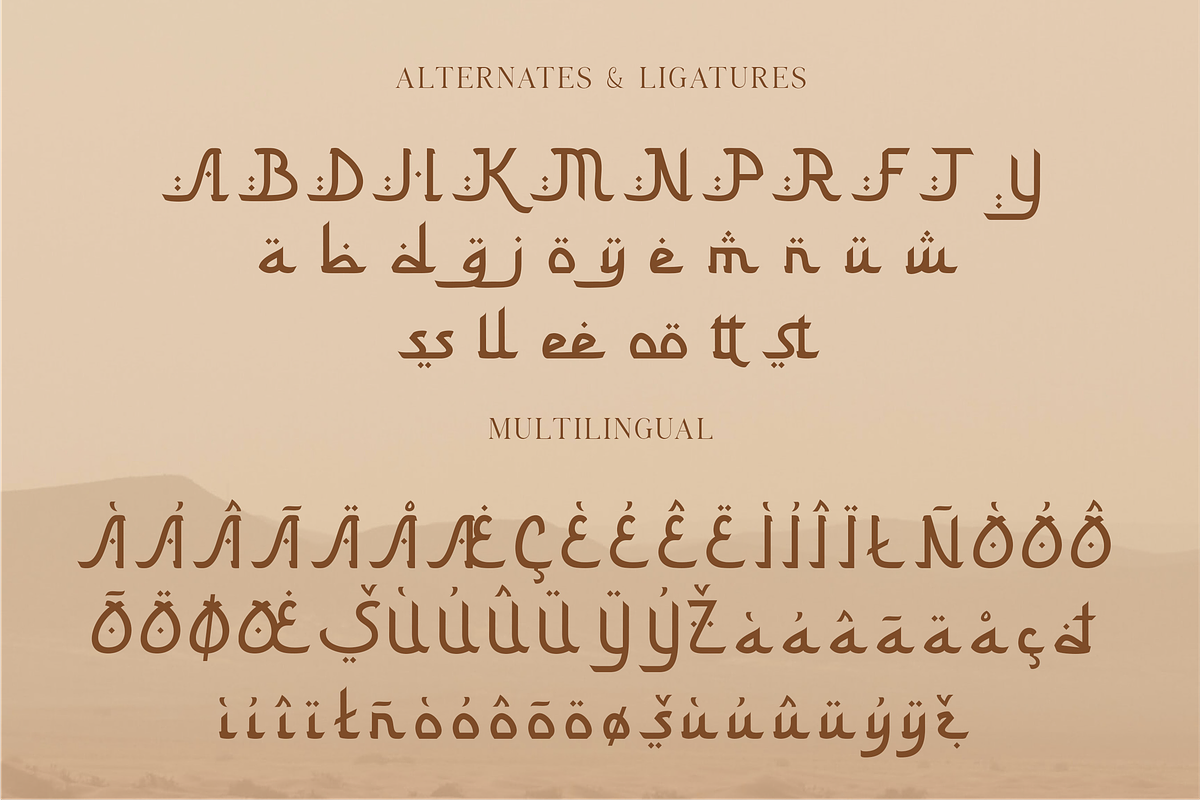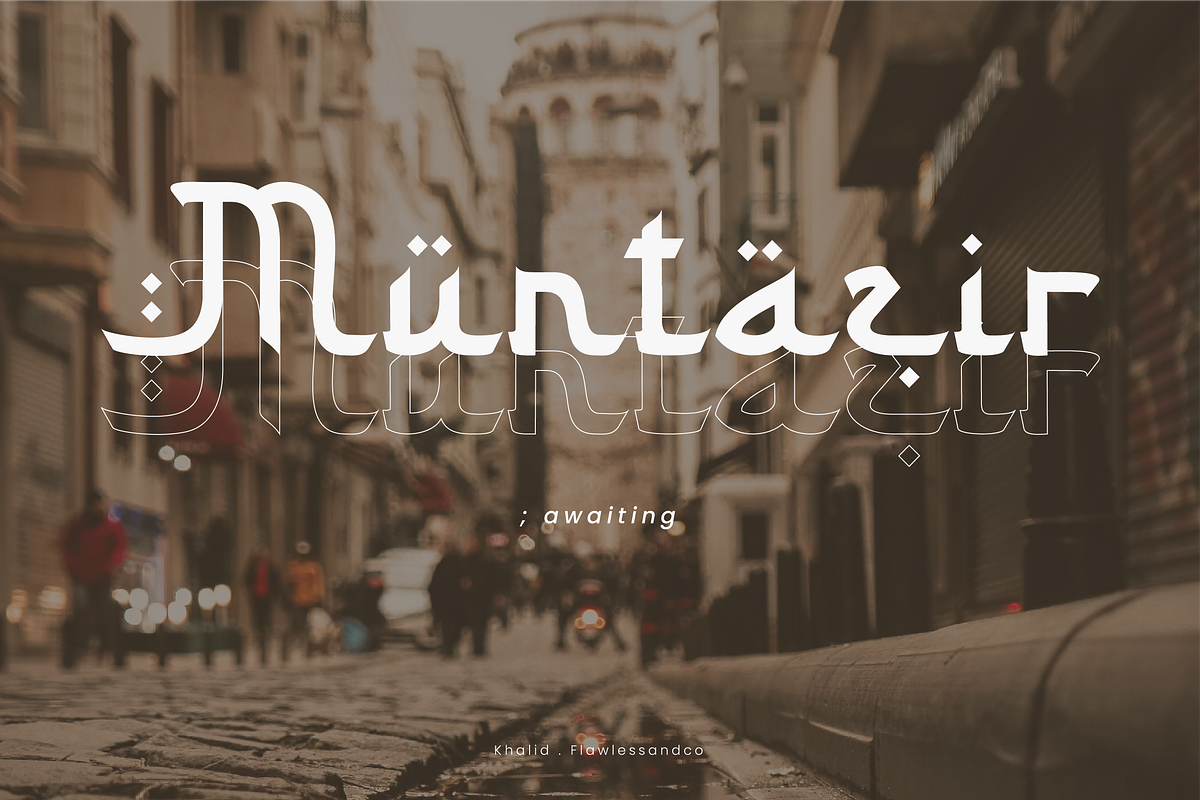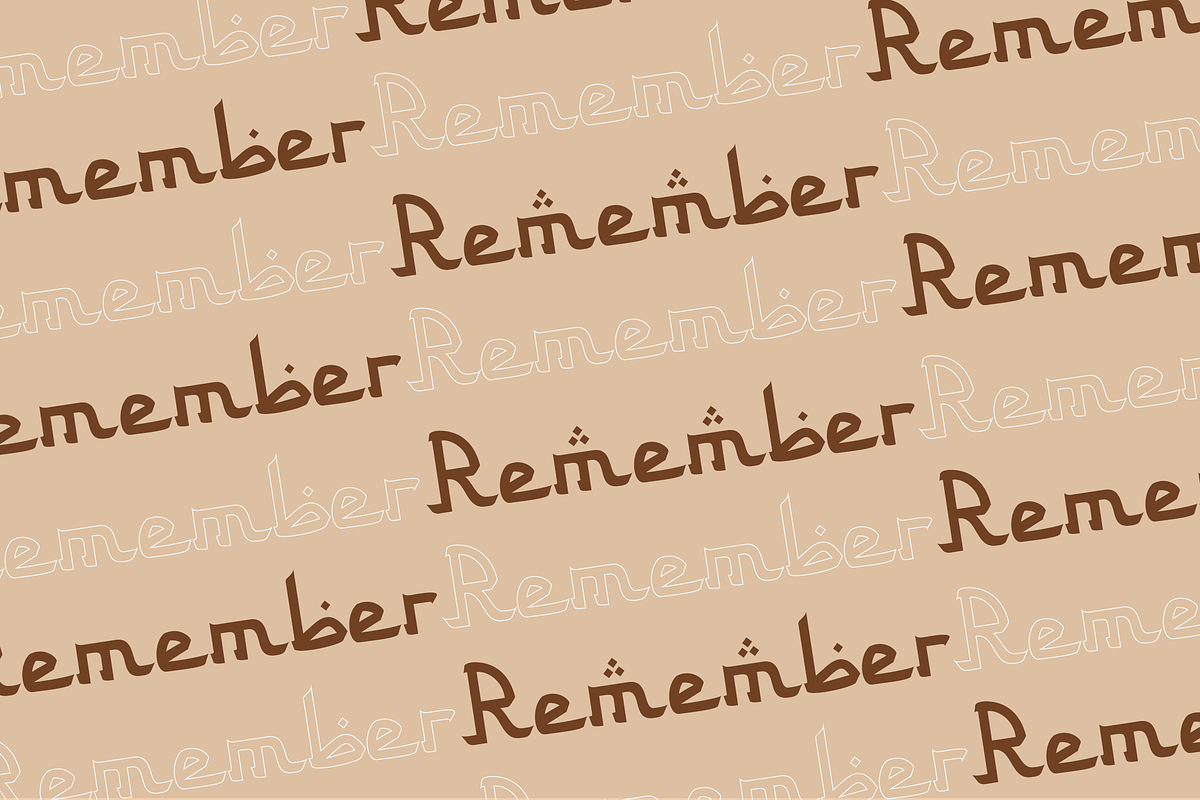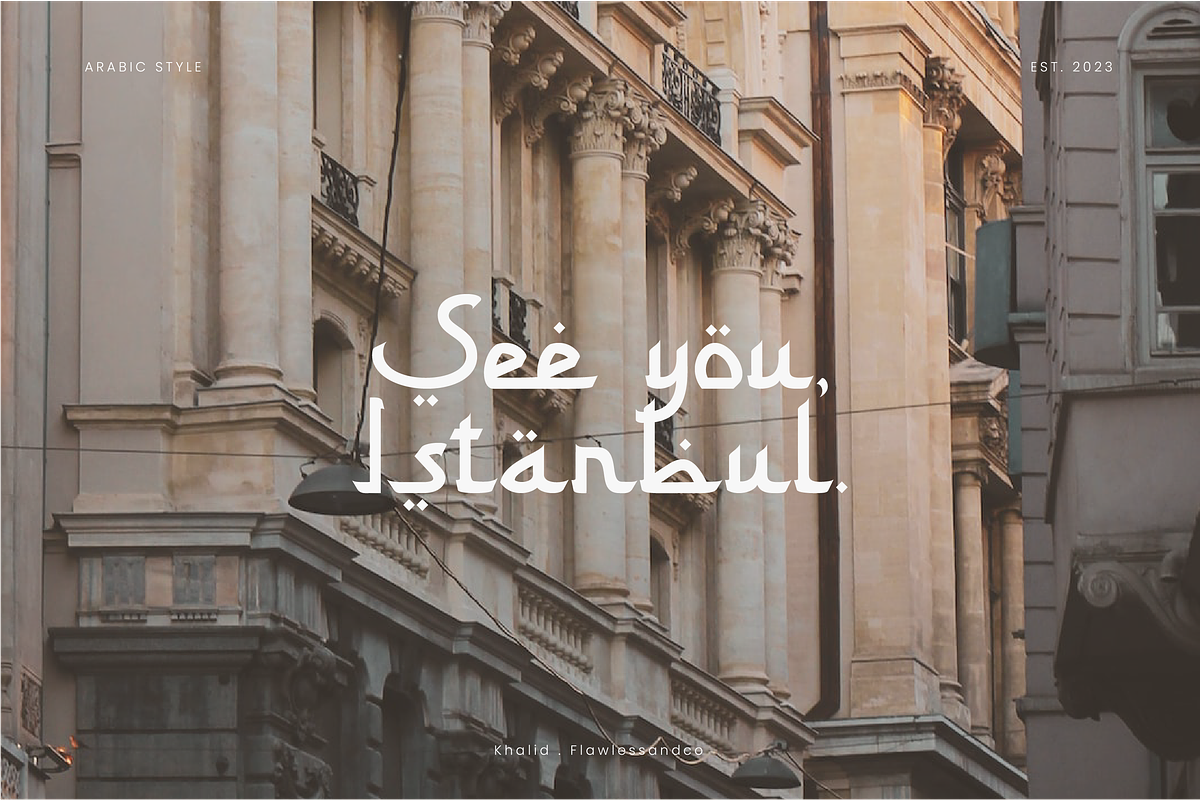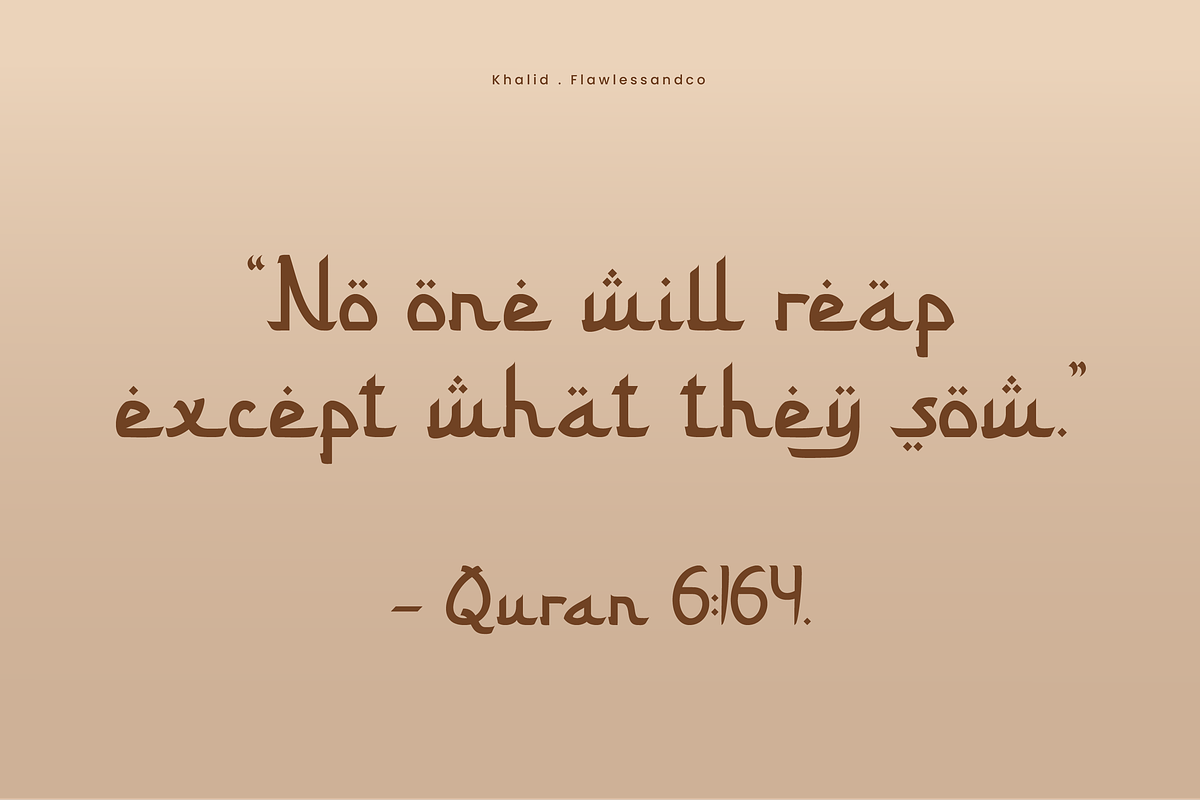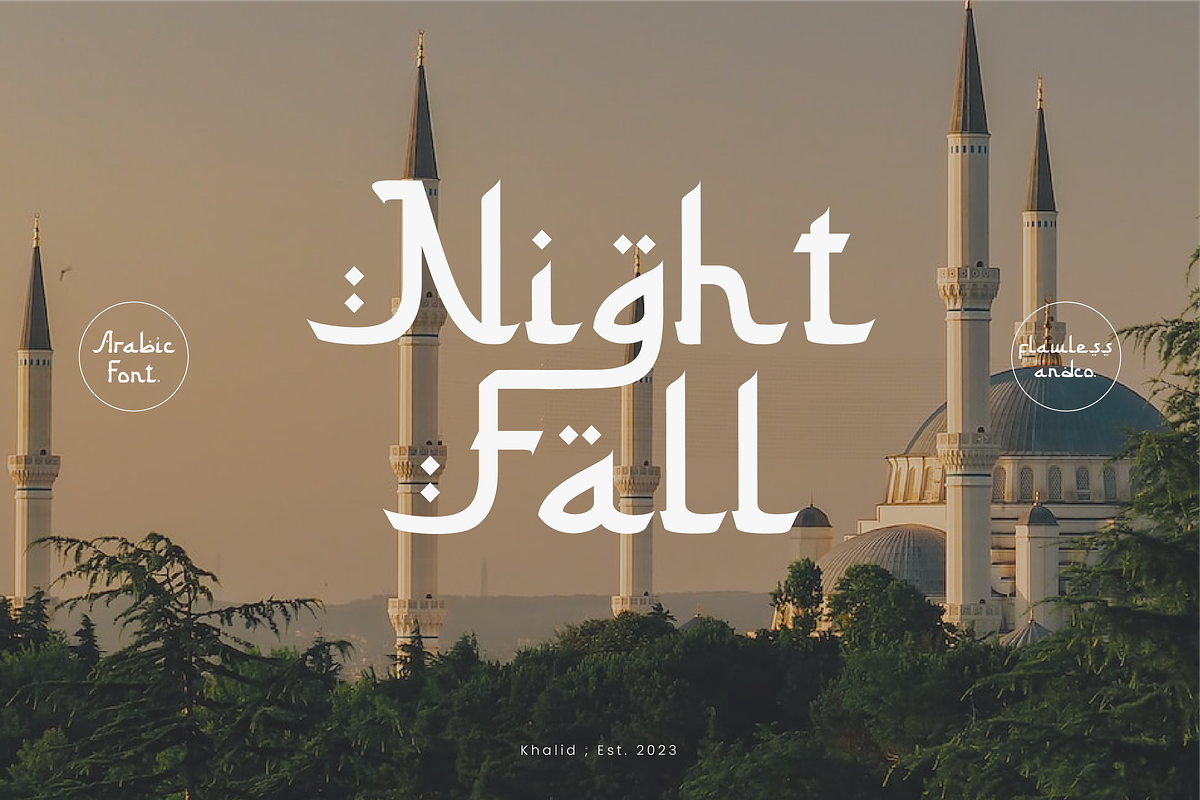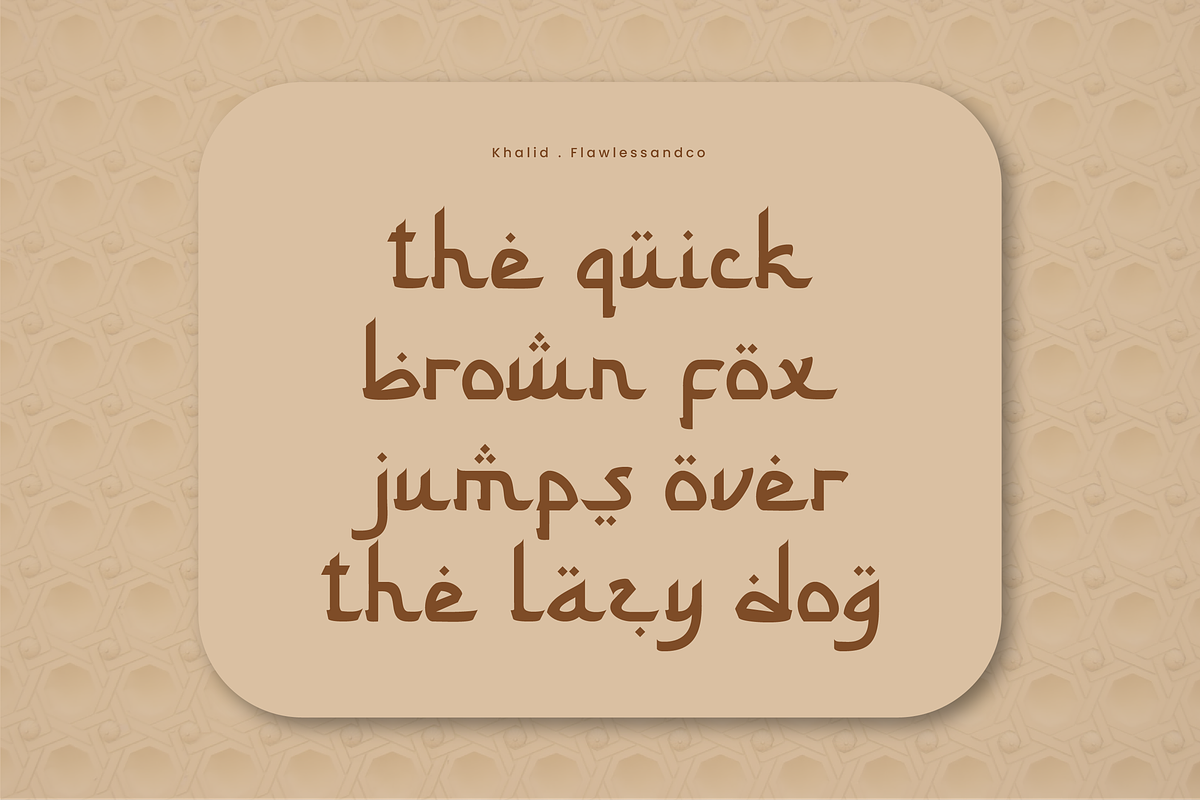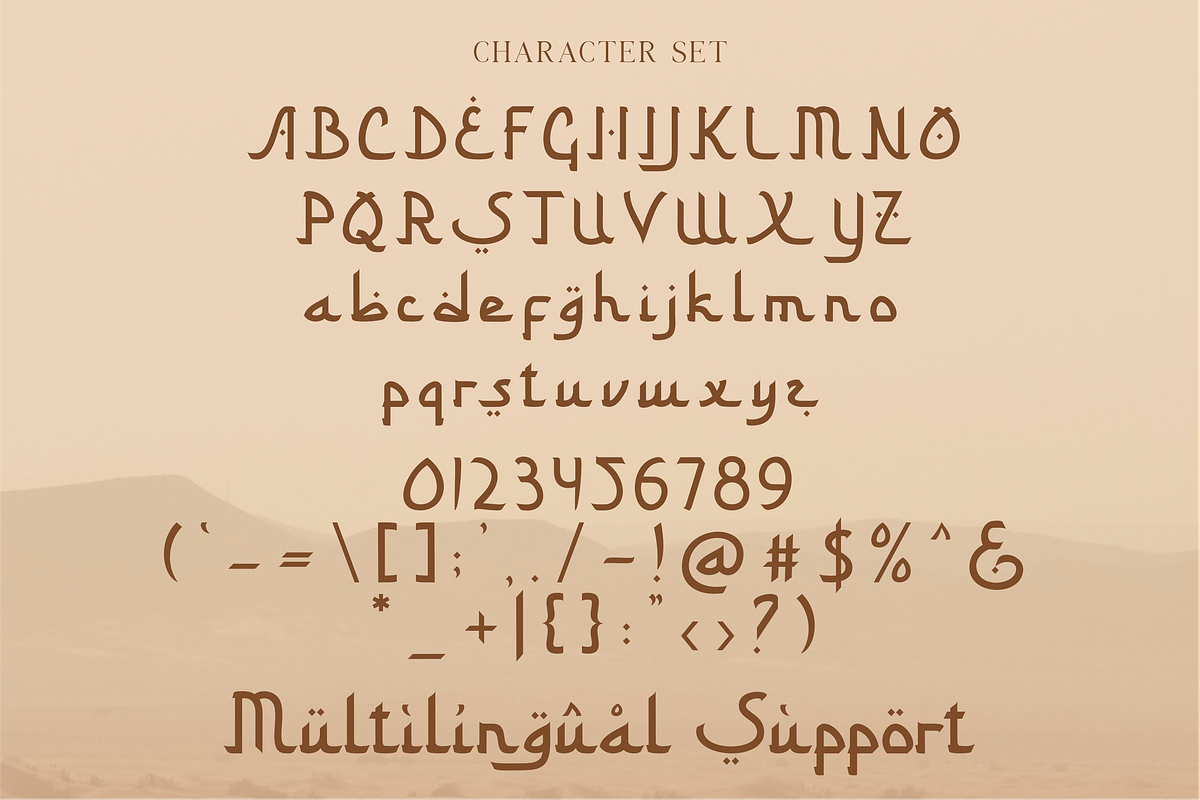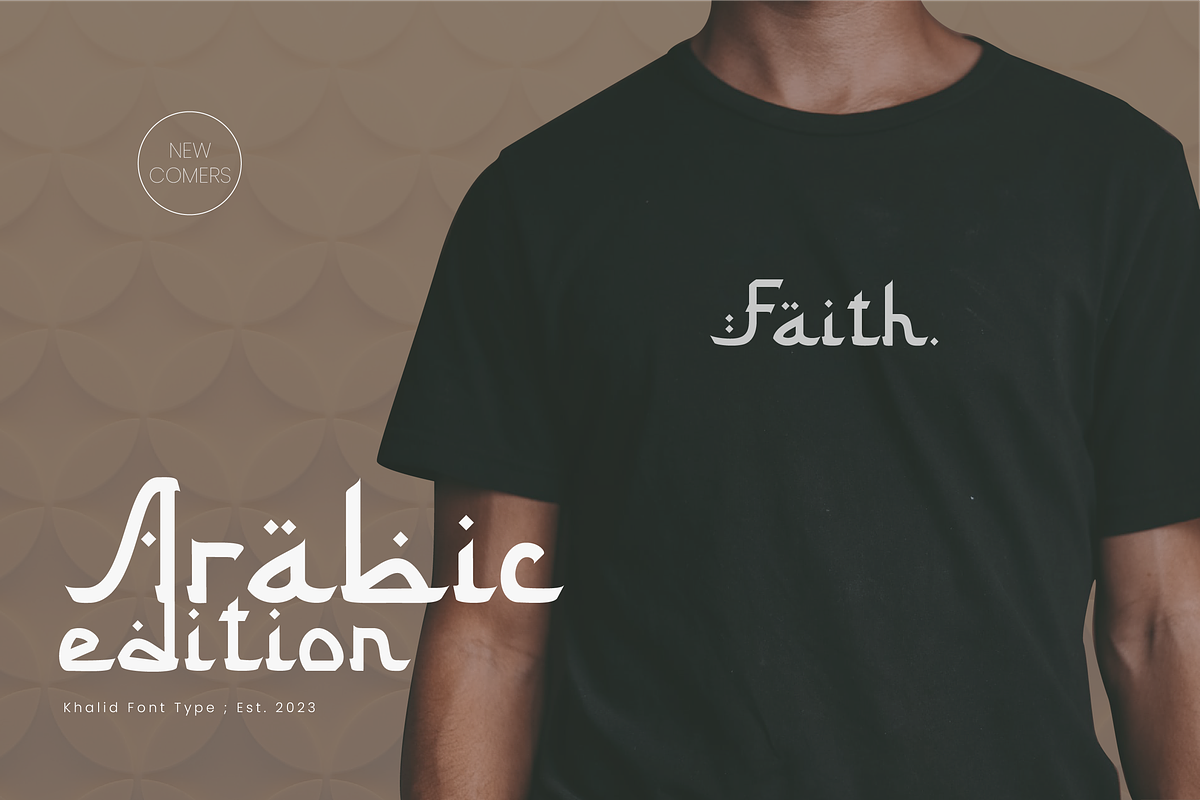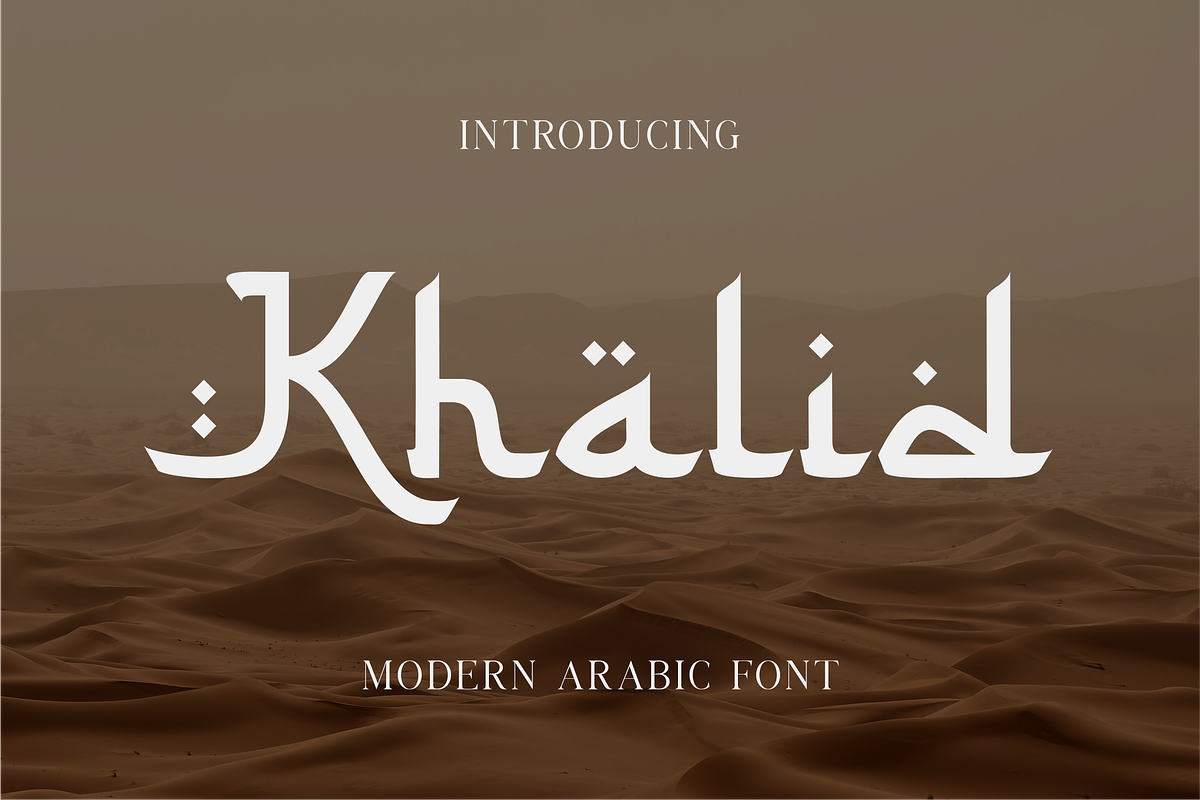
Khalid
introducing our new Arabic Font, Modern Font with Elegant Style is perfect for branding, logos, invitation, master heads, and more.
Multilingual Uppercase alphabet A-Z Lowercase alphabet a-z Alternate Character Numbers 0-9 Some punctuation